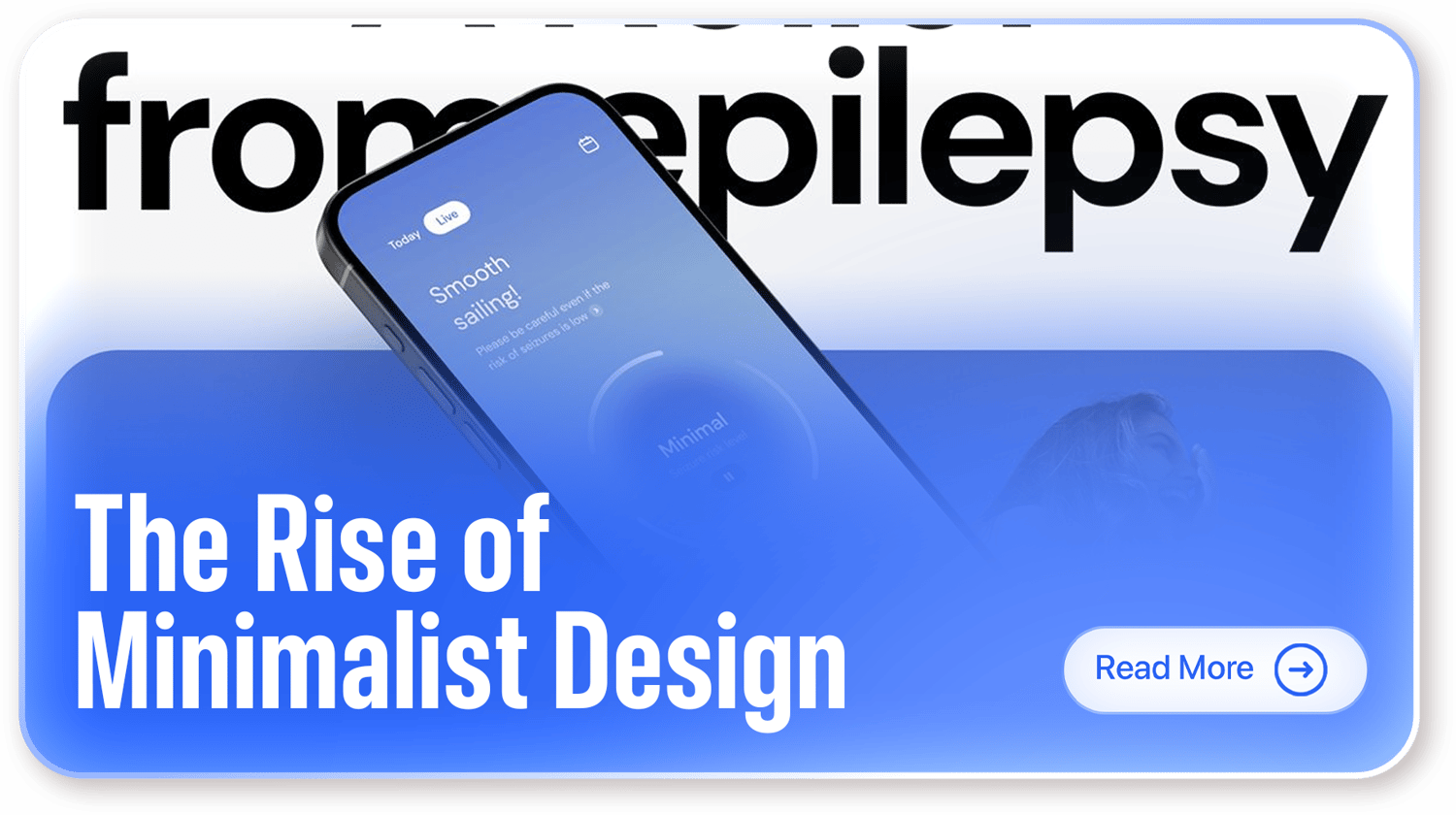
The Rise of Minimalist Design in 2026: Why Less Is Now More
Minimalist design isn’t just a trend—it has become a foundational visual language for modern brands. In 2026, “less is more” has evolved from an aesthetic style to a full strategic approach used by successful businesses around the world. Clean layouts, simple typography, reduced color palettes, and functional visuals are becoming the new standard.
Why? Because customers today crave clarity. With overwhelming digital noise, brands with simple and focused visuals feel more trustworthy, premium, and easier to understand. Minimalism makes your message stronger—not weaker.
This blog explores why minimalist design is dominating 2026 and how businesses can use it to stand out in an overcrowded digital world.
Why Minimalist Design Works So Well in 2026
Customers are bombarded with content every day. Minimalist design cuts through that noise by delivering a clean, clear experience. Here's why it works:
• It reduces cognitive load, making information easier to process.
• It creates a feeling of calm and modernity.
• It improves usability and navigation (especially on mobile).
• It looks professional, premium, and timeless.
• It helps your product or message become the main focus.
In a fast-paced world, simplicity feels like luxury.
Core Principles of Modern Minimalist Design
Minimalism in 2026 is not about removing everything—it’s about removing the unnecessary.
Here are the main elements that define modern minimalism:
Intentional spacing
Whitespace guides the eye and improves readability.
Simple typography
Clean sans serif fonts dominate minimalist trends because they communicate modern simplicity.
Limited color palette
Most minimalist brands use 1–3 colors to maintain cohesion.
Focus on functionality
Every visual element must serve a purpose—not just decoration.
Reduced visual clutter
Less shapes, fewer textures, no excessive ornamentation.
Minimalism enhances user experience, making brands easier to trust and understand.
Why Minimalist Brands Are Perceived as Premium
Minimalist design signals confidence. When a brand uses clean, elegant design, customers subconsciously associate it with higher quality and professionalism.
Here’s why minimal looks premium:
• Luxury brands embrace simplicity because it highlights refinement.
• Less visual noise creates a feeling of exclusivity.
• Precise alignment and clean typography reflect attention to detail.
• Customers perceive minimalist brands as modern and high-value.
This is why Apple, Tesla, and top fashion brands rely on minimalist visual language.
Minimalist Typography Trends in 2026
Typography is the heart of minimalism. In 2026, the most influential minimalist font styles include:
• Modern geometric sans serifs
• Thin or medium-weight sans serifs
• Clean high-legibility serifs
• Fonts with soft, rounded edges
• Ultra-minimal display fonts
These fonts are used in branding, websites, packaging, and social media design because they communicate clarity and modern sophistication.
How Businesses Can Apply Minimalist Design Effectively
To take advantage of minimalist design, consider these practical steps:
• Reduce unnecessary elements on your website
• Limit your brand's color palette
• Use clean, modern fonts for consistency
• Maintain spacious layouts and balance
• Simplify your product photos
• Focus messaging on one core value or promise
Minimalism is not about looking empty—it’s about looking intentional.
Why Minimalism Will Continue to Grow
Minimalism thrives because it aligns with consumer psychology. People want faster decisions, cleaner visuals, and brands that feel effortless to use.
Its relevance will continue growing because it supports:
• Faster loading websites
• Higher readability
• Stronger brand familiarity
• Timeless and long-lasting visuals
• Better mobile experiences
Minimalist design is not just a 2026 trend—it’s becoming the global standard.
Conclusion
Minimalism is shaping the future of branding and digital design. As brands compete for attention, those that communicate clearly and visually simplify their message will stand out, appear more premium, and earn deeper customer trust.